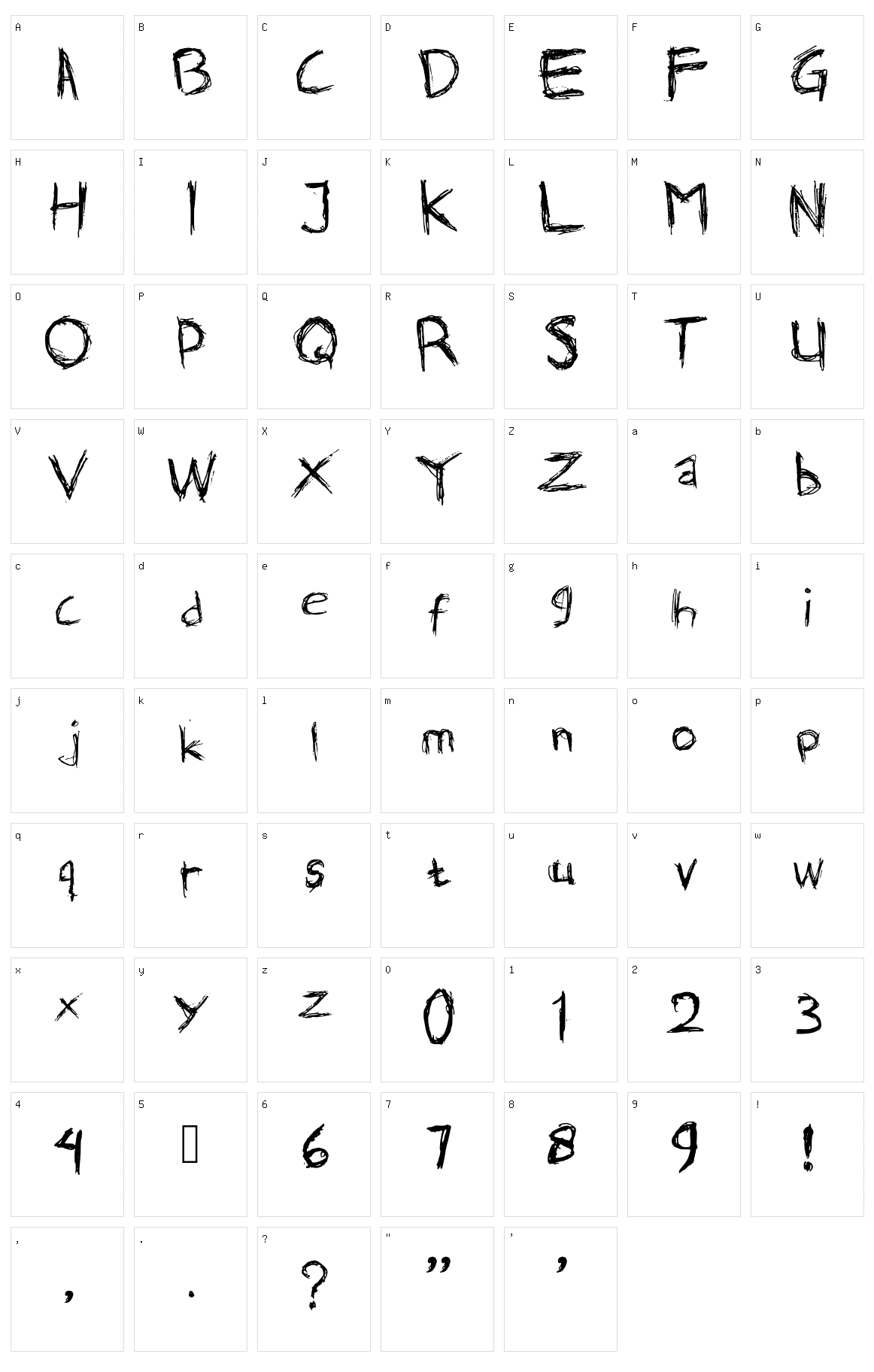
The free font Dl Arsara is carefully designed by Dwight Yorg, showcasing a thoughtful balance of creativity and usability and falls under the Trash font style. When you download the ZIP file, it contains only 57.34 KB of font files, making it lightweight and quick to download. Please review the license details below to understand permitted usage and distribution rights. If license information is not available, we recommend using this font for personal projects only or contacting the author directly for commercial usage permissions.